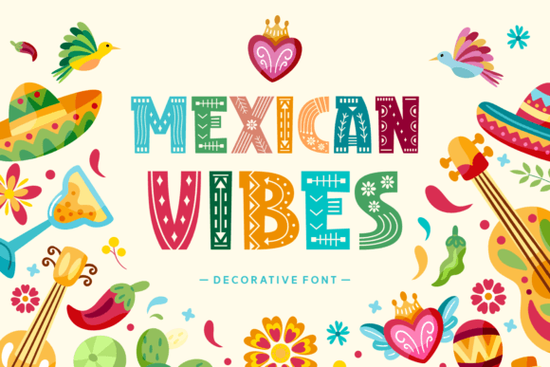
If you're looking for a decorative font with bold personality and cultural flair, Mexican Vibes Font is worth a closer look. It's a handcrafted typeface designed to bring warmth, energy, and a distinctive artistic touch to your creative projects. Whether you design t-shirts, wedding invitations, social media graphics, or branding materials, this font stands out in a way that feels both playful and intentional. Let's break down what it offers and whether it's the right fit for your work.
What kind of style does Mexican Vibes have?
Mexican Vibes is a decorative typeface with an elaborate, ornamental writing style. The letterforms carry a hand-drawn quality with intricate details that give each character a sense of craftsmanship. It leans into a festive, culturally inspired aesthetic think bold curves, textured strokes, and a design that feels alive.
Unlike minimalist sans-serifs or clean serifs, this font is meant to make a statement. It works best in contexts where you want text to be a visual centerpiece rather than just readable body copy.
Who is this font designed for?
This typeface is a strong match for several types of creatives:
- Print-on-demand sellers looking for eye-catching fonts for t-shirt designs, mugs, tote bags, and posters
- Small business owners who want branding with personality especially for food brands, event planning, or lifestyle products
- Crafters and hobbyists working on greeting cards, party decorations, scrapbooking, or DIY projects
- Graphic designers who need a decorative accent font for headlines, logos, or social media posts
If your work involves Latin-inspired themes, fiesta events, Día de los Muertos designs, or any project that calls for a festive and ornamental touch, this font is a natural choice.
Where does Mexican Vibes work best?
Here are some practical ways to use this font in your projects:
- T-shirt designs especially for Cinco de Mayo, cultural celebrations, or bold statement tees
- Event invitations fiesta-themed parties, weddings with a colorful palette, or quinceañera invitations
- Restaurant menus and branding perfect for Mexican restaurants, taco shops, or food trucks
- Social media graphics Instagram posts, story headers, and promotional banners
- Wall art and posters quotes, typography art, or decorative prints for home décor
- Packaging and labels spice brands, hot sauce bottles, artisan product labels
Because of its ornamental nature, it's best used for headlines, logos, and display text rather than long paragraphs. Keep your supporting text simple pair it with a clean sans-serif for body copy to maintain readability.
How does it compare to other decorative fonts?
If you're browsing decorative fonts on Creative Fabrica, you'll find a wide selection. Mexican Vibes holds its own with a style that balances ornate detail and legibility. For comparison, the Sumario typeface offers a different decorative approach with its own unique character making it another solid option for projects that need visual impact.
What sets Mexican Vibes apart is its cultural warmth and celebration-inspired energy. It doesn't just look decorative it carries a mood. That emotional quality matters when you're designing for a specific audience or theme.
- Font size: This typeface reads best at larger sizes. Avoid using it below 18–20pt for digital designs
- Color pairings: It looks great with warm tones terracotta, gold, deep red, turquoise, and black all complement its festive style